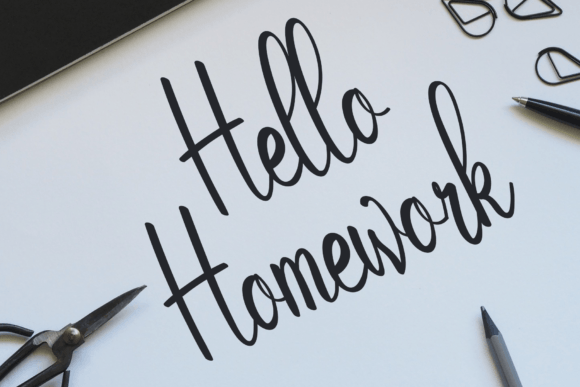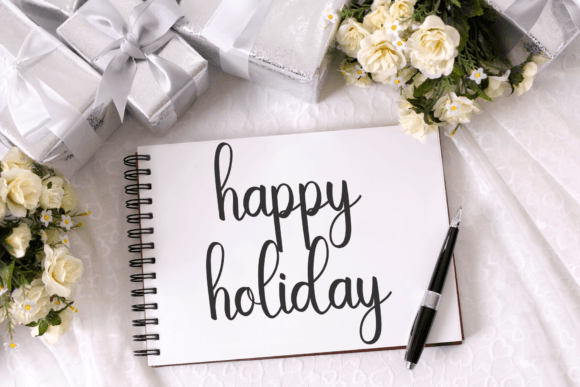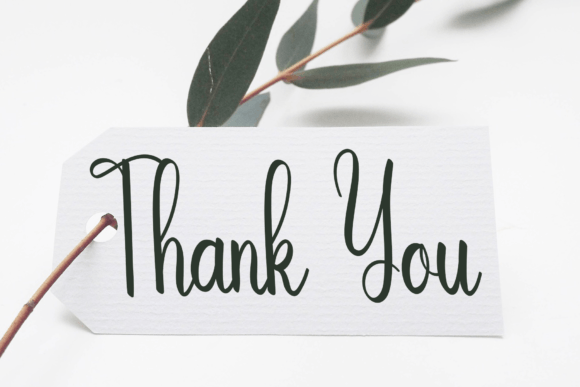
Happy Font
Happy is a meticulously crafted and beautiful handwritten font characterized by a neat and elegant touch. This font is perfect for a variety of projects, bringing an element of sophistication to your favorite designs. Whether you’re working on branding, invitations, posters, or any other creative endeavor, Happy is the ideal choice to infuse your projects with a distinct and timeless style that is sure to captivate.
The neat and precise strokes of Happy contribute to its polished and refined appearance, making it well-suited for projects that demand a clean and sophisticated aesthetic. Whether used in print or digital media, Happy adds a layer of grace and beauty to your typography.
The handwritten nature of the font imparts a personal and authentic touch to your projects, establishing a connection with your audience. Versatile in application, Happy adapts seamlessly to different design contexts, providing a consistent sense of style.
Happy’s timeless style ensures its relevance across various design trends. Its classic and enduring quality makes it adaptable to different aesthetics, from modern to more traditional. This versatility allows you to integrate Happy into your creative vision, making it a valuable asset for a broad range of projects.
In essence, Happy is more than just a font; it’s a design tool that enables you to infuse a distinct and timeless elegance into your projects. Fall in love with the beauty of Happy as you explore its potential to enhance your designs, creating a visual language that is both sophisticated and captivating. Let Happy be the exquisite handwritten font that elevates your creations into a realm of spectacular design.